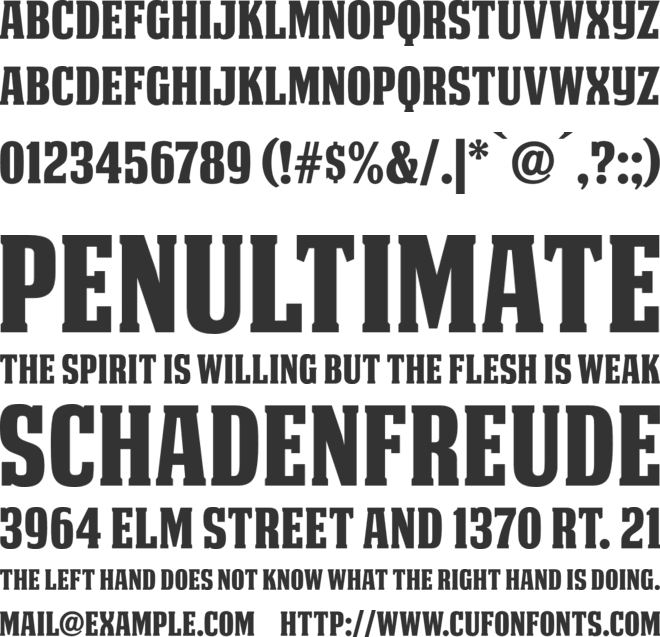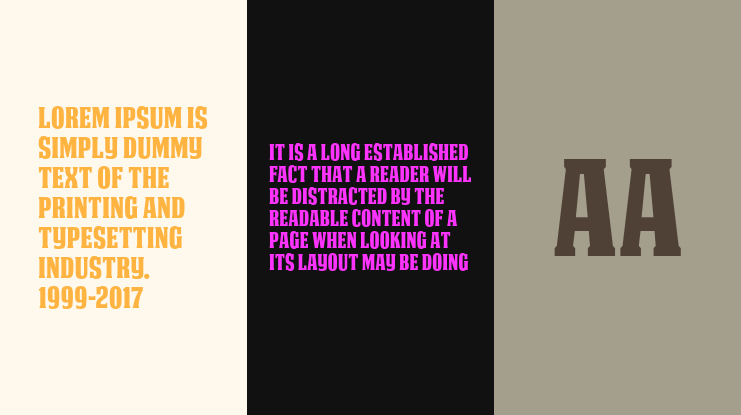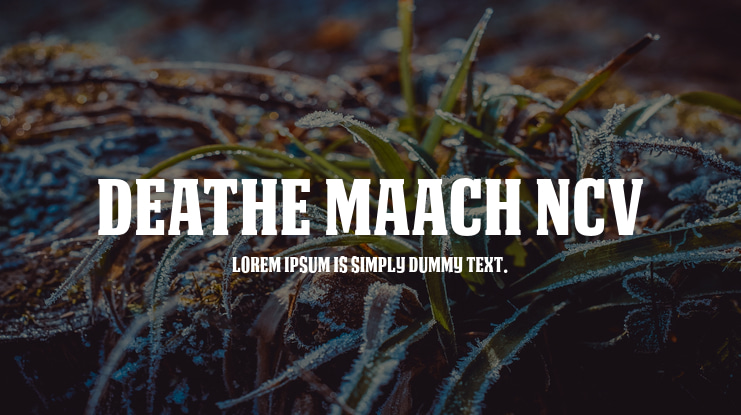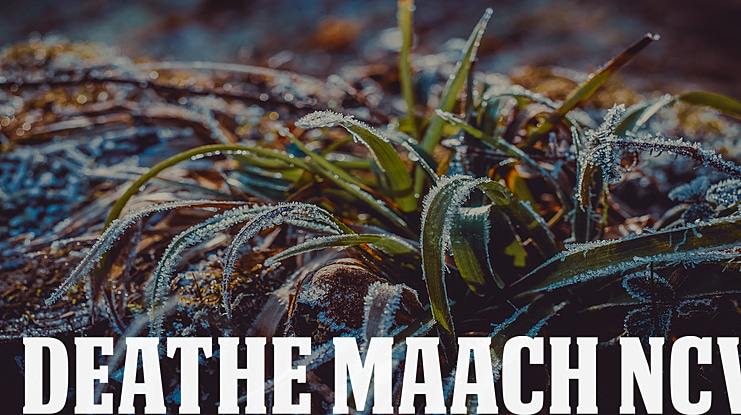
DEATHE MAACH NCV Font
DEATHE MAACH NCV (pronounced "deeth mawsh") is the Non Commercial Variation of the commercial font, DEATHE MAACH 3891.
While the freeware version of DEATHE MAACH arrives on your keyboard with Upper Case letters only, the commercial version of this font includes a complete range of lowercase characters. All versions of the DEATHE MAACH font include OT features and character replacement options.
DEATHE MAACH is a six-font family of descending weights with the strength and stamina to face all comers. So pistols out, barrels forward. This font is ready to enforce and serve.